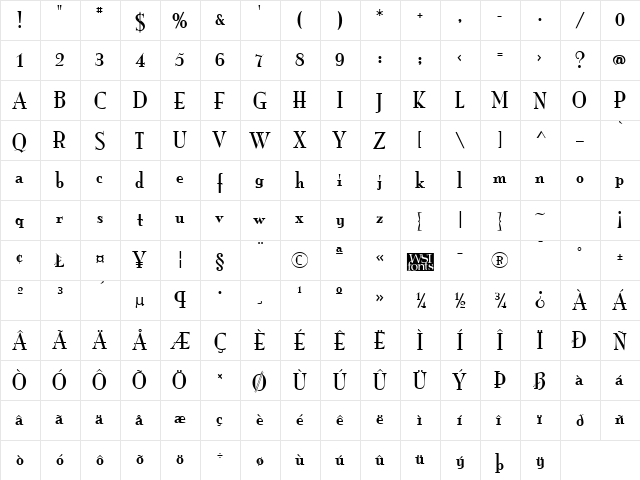
Monarch Regular Font Preview
Monarch Regular
Design Context for Monarch Typeface
Monarch offers clean, dependable letterforms without strong stylistic allegiance, making it a practical choice for designers who need flexibility.